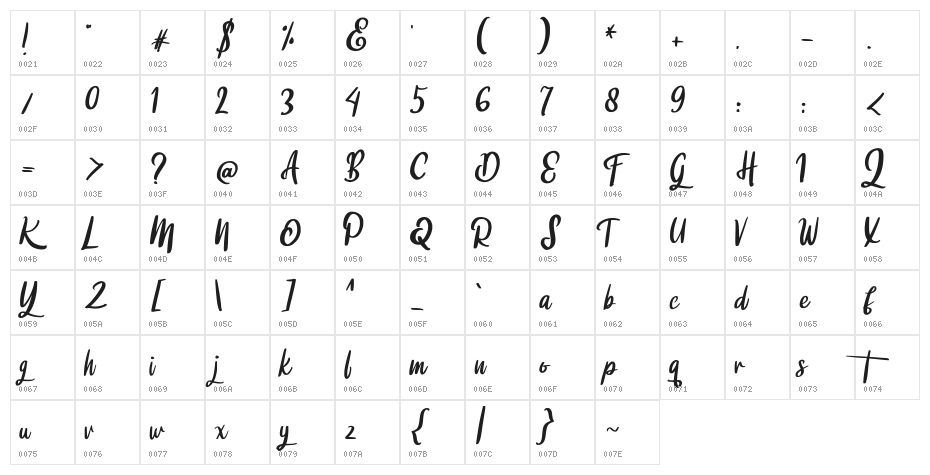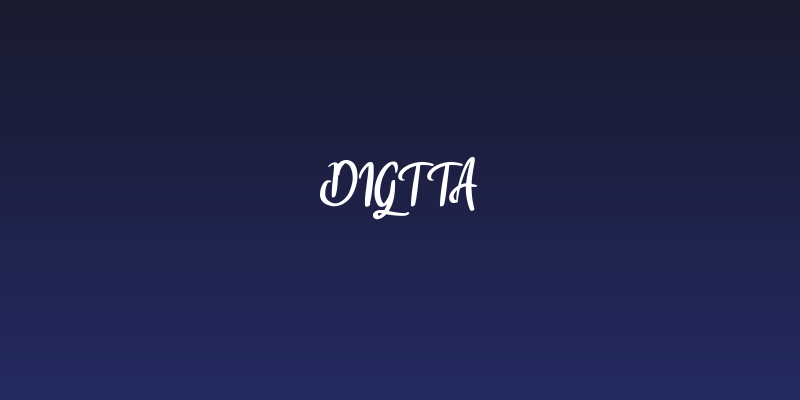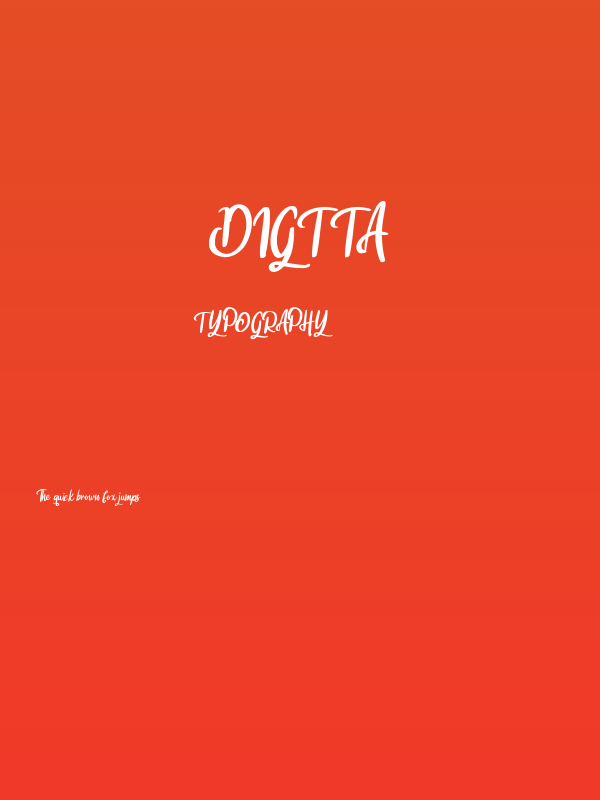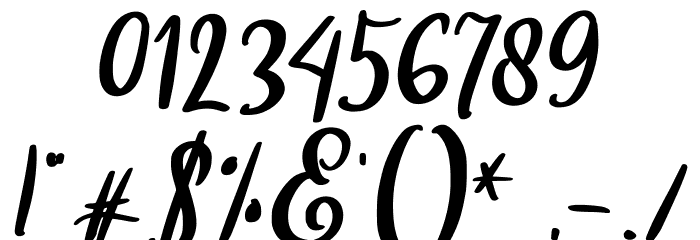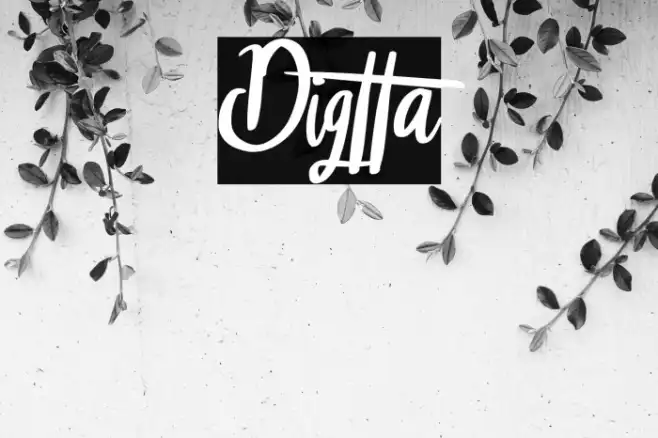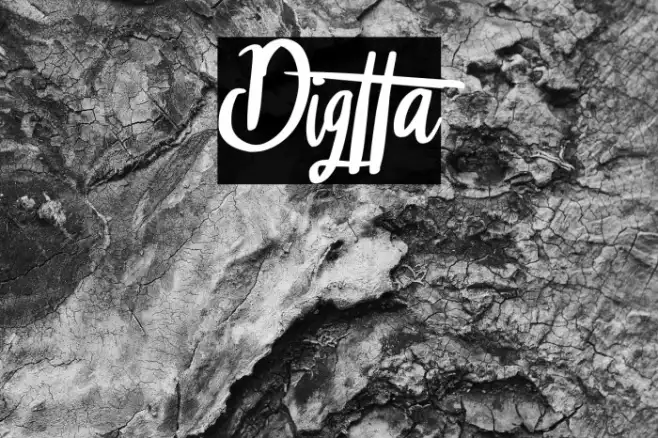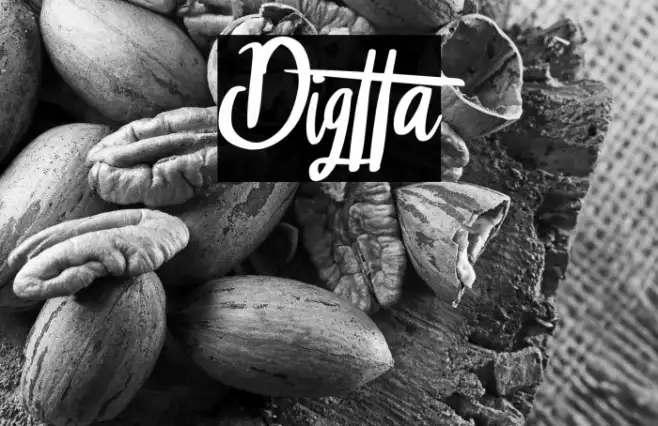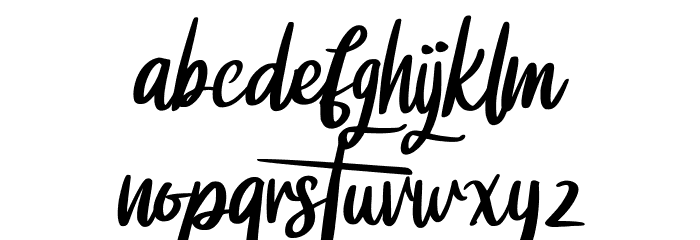
Digtta Font
Digtta Description
This font features a dynamic and expressive handwritten style, characterized by its fluid strokes and playful curves. The uppercase letters are bold and slightly slanted, giving a sense of movement and energy. The lowercase letters maintain a consistent flow, with some letters featuring unique loops and swashes that add to its charm. Numbers and special characters are crafted with the same attention to detail, ensuring a cohesive look across all elements. The overall appearance is both modern and artistic, making it suitable for creative projects.
| Overall Style | Modern, Artistic |
| Proposed Projects | Ideal for branding, invitations, greeting cards, and social media graphics where a personal touch is desired. |